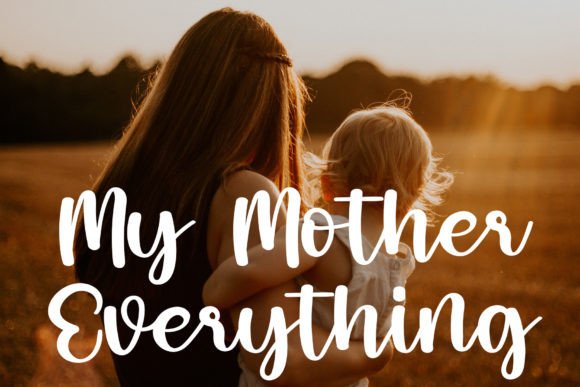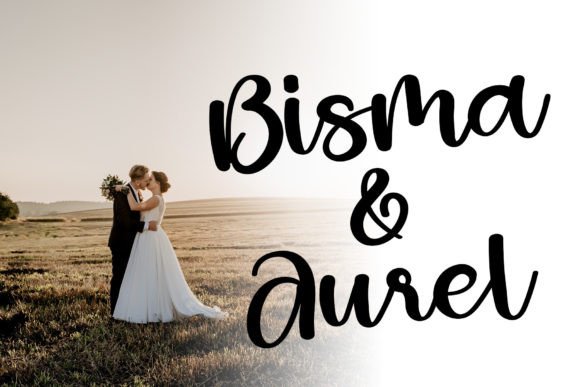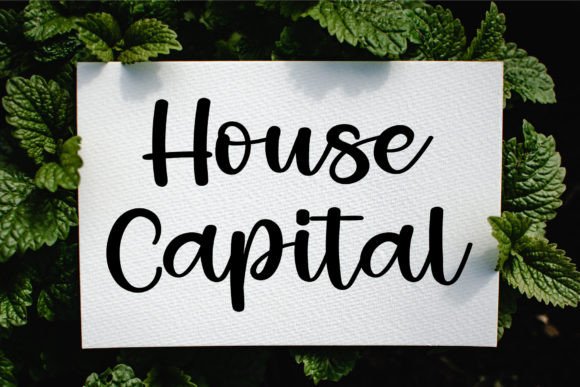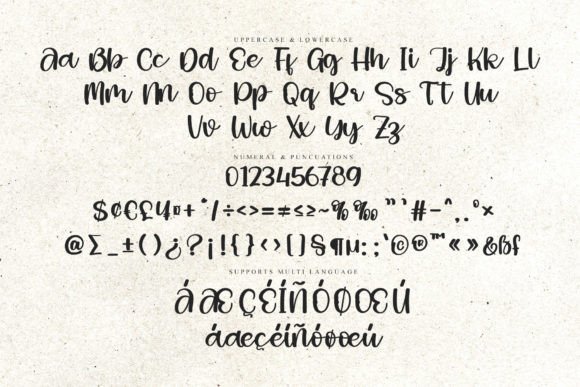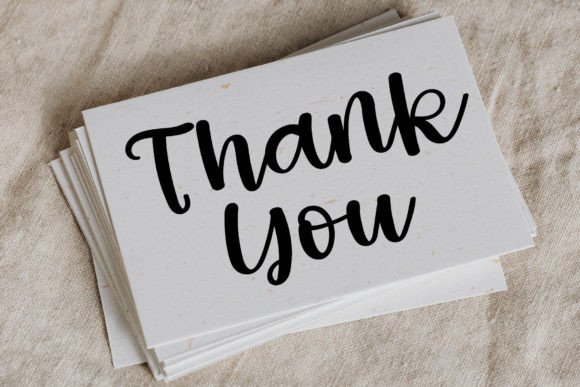
Dance Font: Elevate Your Designs with Elegance and Style
Are you looking for a font that exudes sophistication, elegance, and a touch of classic charm? Look no further than the Dance Font, a stylish handwritten font that brings a contemporary atmosphere and impeccable form to your designs. Inspired by timeless classic calligraphy, this font is perfect for designers and crafters seeking to add a touch of refinement to their projects.
The Inspiration Behind Dance Font
Dance Font is a masterful blend of traditional calligraphy and modern design. Its creator drew inspiration from the classic scripts of the past, reimagining the elegant lines and curves to create a font that is both nostalgic and fresh. The result is a typeface that feels both luxurious and approachable, making it suitable for a wide range of applications.
Key Features of Dance Font
- Contemporary Atmosphere: Despite its classic inspiration, Dance Font boasts a distinctly modern feel. Its clean lines, balanced proportions, and varied letterforms ensure that your text looks current and stylish.
- Impeccable Form: Each letter in Dance Font has been meticulously crafted to ensure that it is not only aesthetically pleasing but also highly legible. This makes it perfect for both headings and body text.
- Balanced and Varied: The font features a range of letterforms, ensuring that your text never looks monotonous. This variation adds depth and interest to your designs, making them more engaging for your audience.
- Timeless Classic Calligraphy Inspiration: The font’s roots in classic calligraphy give it an enduring quality that won’t go out of style. This makes Dance Font an excellent choice for projects where you want to convey a sense of tradition and heritage.
Uses for Dance Font
Dance Font’s versatility makes it suitable for a variety of design projects. Here are some ideas to get you started:
- Wedding and Event Stationery: Add a touch of elegance to your wedding invitations, menus, and programs with Dance Font.
- Branding and Packaging: Use Dance Font to create luxurious brand identities and packaging that stands out on store shelves.
- Digital and Print Media: Whether you’re designing a magazine, brochure, or website, Dance Font can add a level of sophistication to your content.
- Signage and Displays: Make a statement with eye-catching signage and displays that utilize the stylish and readable qualities of Dance Font.
Dance Font is a beautiful, stylish handwritten font that brings a touch of classic elegance to your designs. Its contemporary atmosphere, impeccable form, and timeless inspiration make it an excellent choice for designers and crafters looking to elevate their projects. With its versatility and range of applications, Dance Font is sure to become a staple in your design toolkit.